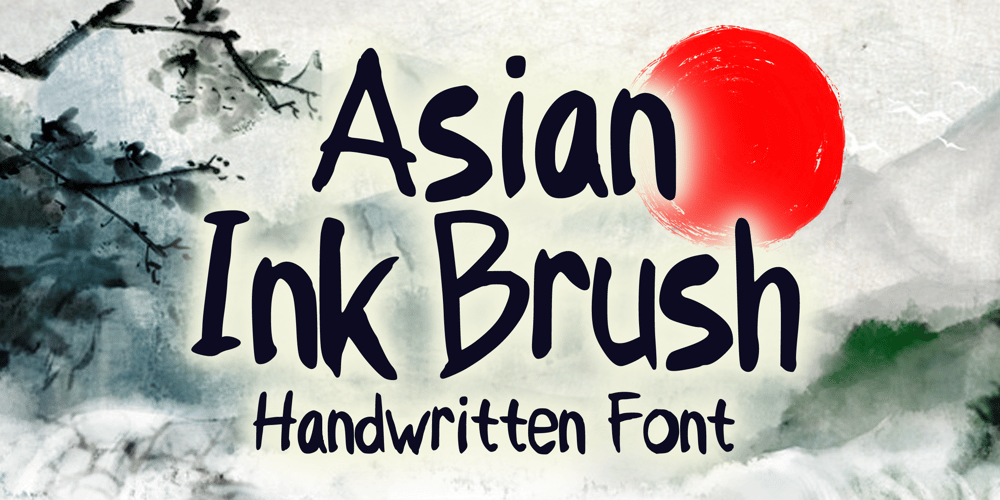
Asian Ink Brush Font Family was designed by Gabriel Valentinus and published by Mvmet. Asian Ink Brush contains 1 styles and family package options. Asian Ink Brush is a beautiful and playful sumi brush ink handwritten font. You can use it for anything ranging from t-shirts, book designs, and greeting cards to stickers and posters, packaging designs, or anything that needs a casual touch, it will be your perfect font to pick. Fall in love with its incredibly versatile style, and use it to create lovely designs!